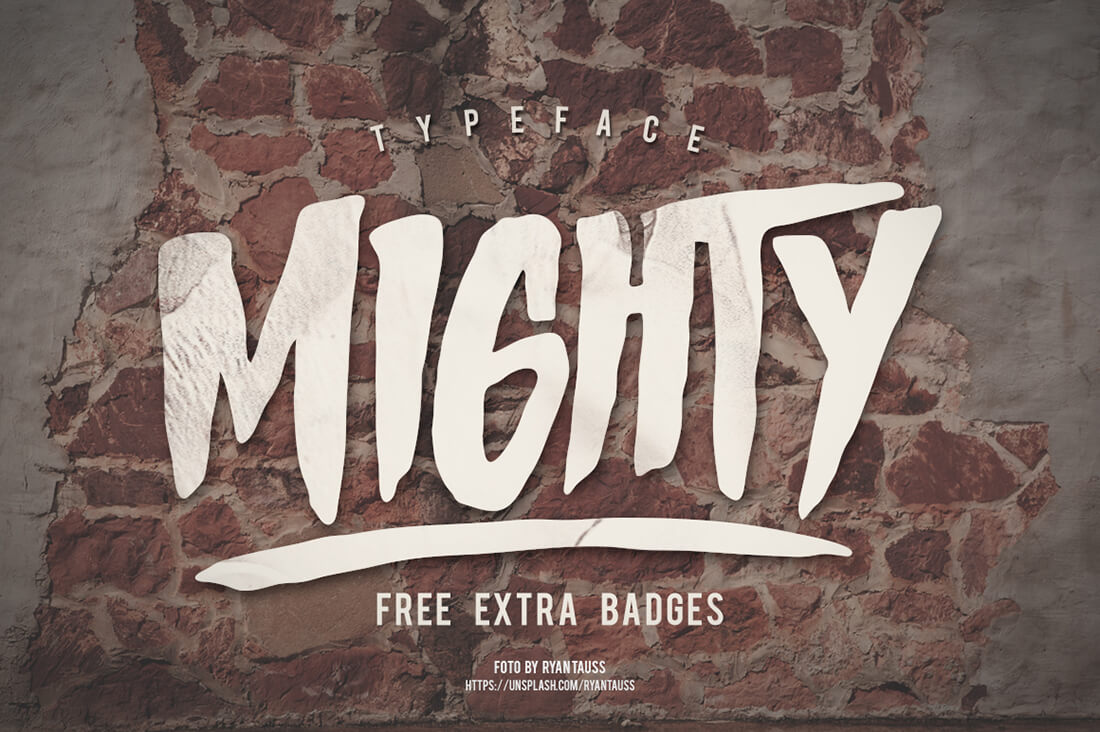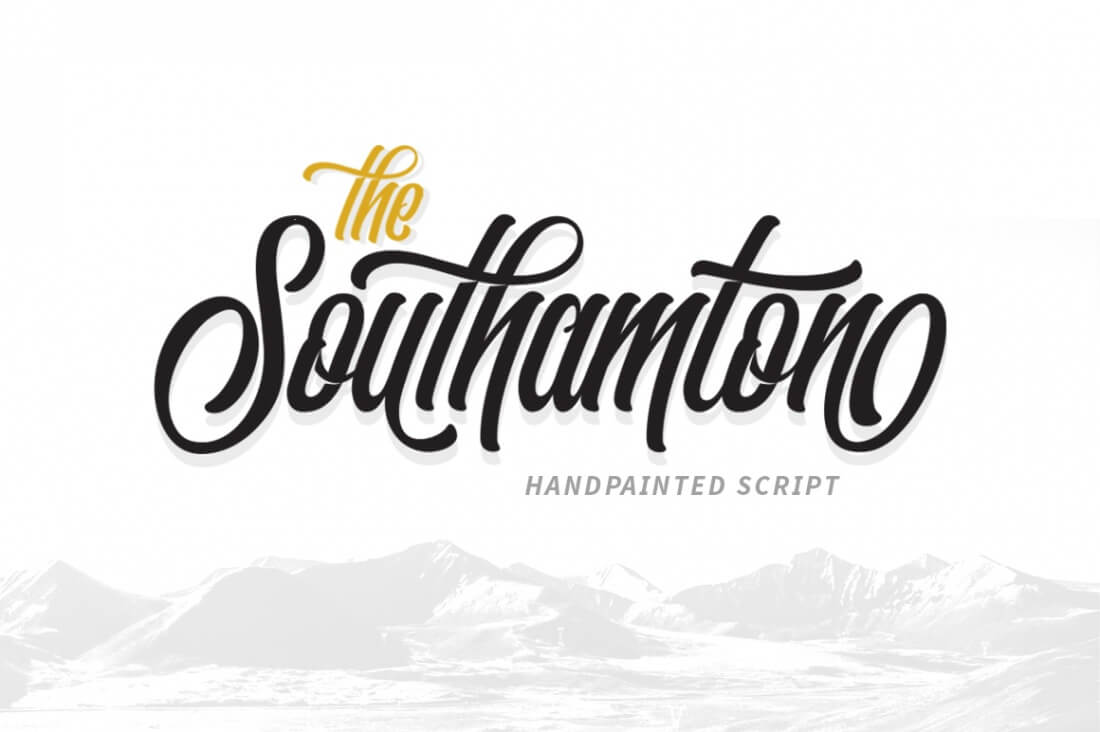
Time for another insane Mighty Deals exclusive! This time, we're bringing you a monstrously huge Summer Font Bundle of a deal. For 1 super low price, you'll take home 30 different professional fonts, pulled together from 6 different designers! That means you'll not only get some gorgeous, hand-drawn, high-quality typefaces, but a real nice variety as well. And at a 97% discount, we can't think of a better way to enjoy the summer!
Take a look at the fontastic items included in this deal!
5 Fabulous Fonts from Giemons:
- Perfect choice for whipping up fabulous designs on posters, T-shirts, mugs, logos, headers and more.
Bright Sight Family
- 2 styles make up this fantastic family: Regular and Italics.
- Use these terrific typefaces to create jaw-dropping designs on badges, clothing, party posters, gigs, logos, album covers and more.
Mighty Typeface
- Take advantage of OpenType features such as Stylistic Alternates, Ligatures and more.
- Crank out killer designs for a variety of products including: logos, headers, album covers, posters, labels, T-shirts and more.
- Bonus: Features a great set of vector badges (EPS Illustrator 10).
Spacethink
- Includes 5 awesome styles to play with: Rough, Regular, Alt, Italic and Italic Alt.
- Active, energetic fonts.
- Convey your message beautifully on everything from display to movie screens to album covers.
Faithful
- Gorgeous hand drawn brush font.
- OpenType features including: Stylistic Alternates, Ligatures, Swashes and more.
- Have fun designing great products such as mugs, tote bags, cards, posters, logos and more.
5 Terrific Typefaces from Wnprhco:
Westerous
- 2 Spiffy Styles: Script and Sans.
- Fonts include Upper and Lowercase letters, numerals, punctuation and more.
- Jump on OpenType Features like Discretionary Ligatures and more.
- A nice font choice for designing custom styles of logos, headlines, vintage apparel, cards, posters and more.
The Southamton
- Beautiful handpainted script font with a real customizable style.
- Mix things up with a variety of styles including Standard, Alternative and Non-Connections.
- The perfect typeface to use for letterhead, logos, posters, cards, vintage elements, headlines and more.
- OpenType Features include discretionary ligatures and more.
- Includes Swashes in EPS format.
Realitium
- Features 2 unique styles (Regular and Inline), each with an alternative style.
- Fun vintage font featuring upper and lowercase glyphs.
- Great for letterhead, vintage apparel, headlines, posters, cards and more.
Dianjuli
- Interesting handpainted typeface perfect for anything from headlines to logos to T-shirts.
- Inspired by urban art, tattoos and graffiti styles.
- Splatter element on every character.
- Offers Stylistic Alternates, Rust Style on Terminals and Alternative Characters.
Wanih
- Handpainted typeface with a customizable style.
- Good choice for tattoo designs, logos, headlines, T-shirts and more
- Sports more than 114 glyphs.
- OpenType Features include Stylistic Sets, Ligatures, Contextual Alternates and more.
4 Fantabulous Fonts from Cruzine
Flamingo
- Add real curves to your designs with this vintage and fantasy style font.
- 6 Fonts in 1: Regular, Grunge, Inline Grunge, Shadow, and Shadow Grunge.
La Forest
- 4 fonts in the family: Regular, Grunge, Inline, and Inline Grunge.
- Blackletter and vintage style display fonts.
- Good typeface to use for retro and vintage projects.
Star
- Add a real ArtDeco vintage style to your typeface toolbox.
- 8 fonts in 1 creative family: Regular, Grunge, Inline Grunge, Bold, Bold Grunge, Bold Inline, and Bold Inline Grunge.
- Excellent choice for all sorts of projects from playbills to posters.
TRANST
- Go futuristic with this hi-res 3D modern letter font.
- These hi-res letter renders clock in at 2000x2000 px and 300 dpi.
- Bonus vector characters help you add more style to your projects.
- Includes numbers and special characters.
- Your first choice for any truly creative projects.
6 Titanic Typefaces from Type-Type
Bricks
- Inspired by early Soviet visual culture.
- Consists of the simplest triangle and rectangle forms.
- Features 16 different typefaces: Hairline, Thin, Light, Regular, Medium, Bold, ExtraBold, and Black (each available in Regular and Italics versions).
- With highly exaggerated simple forms, Bricks looks great in even the smallest of type.
- More than 400 glyphs per font.
- Supports 72 languages.
- The ultimate choice for designing posters.
Drugs
- 5 font styles: Light, Thin, Bold, Black and Regular.